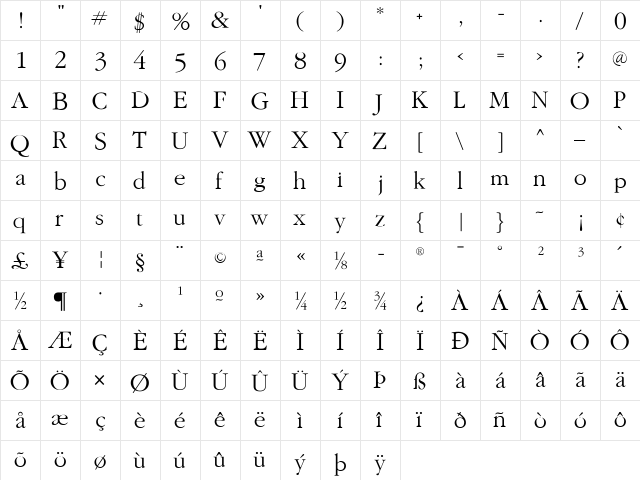
GaramondFLF-Roman Regular
Design Context for GaramondFLF-Roman Typeface
GaramondFLF-Roman is a composed and adaptable typeface that performs quietly and consistently across a wide range of design contexts.